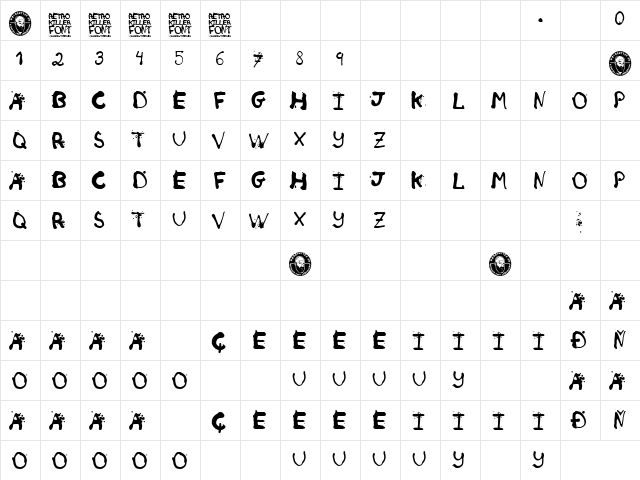
Retro Killer Regular
Design Context for Retro Killer Typeface
Retro Killer wears its vintage influences proudly, with letterforms that recall mid-century signage, classic packaging, and nostalgia-driven design.
Font Pairing: Combine Retro Killer with a simple slab or neutral sans — period-accurate companions reinforce the vintage feel without competing for attention.
Pro Tip: Lean into Retro Killer's period character by pairing it with aged paper textures, muted colour palettes, and vintage illustration styles.